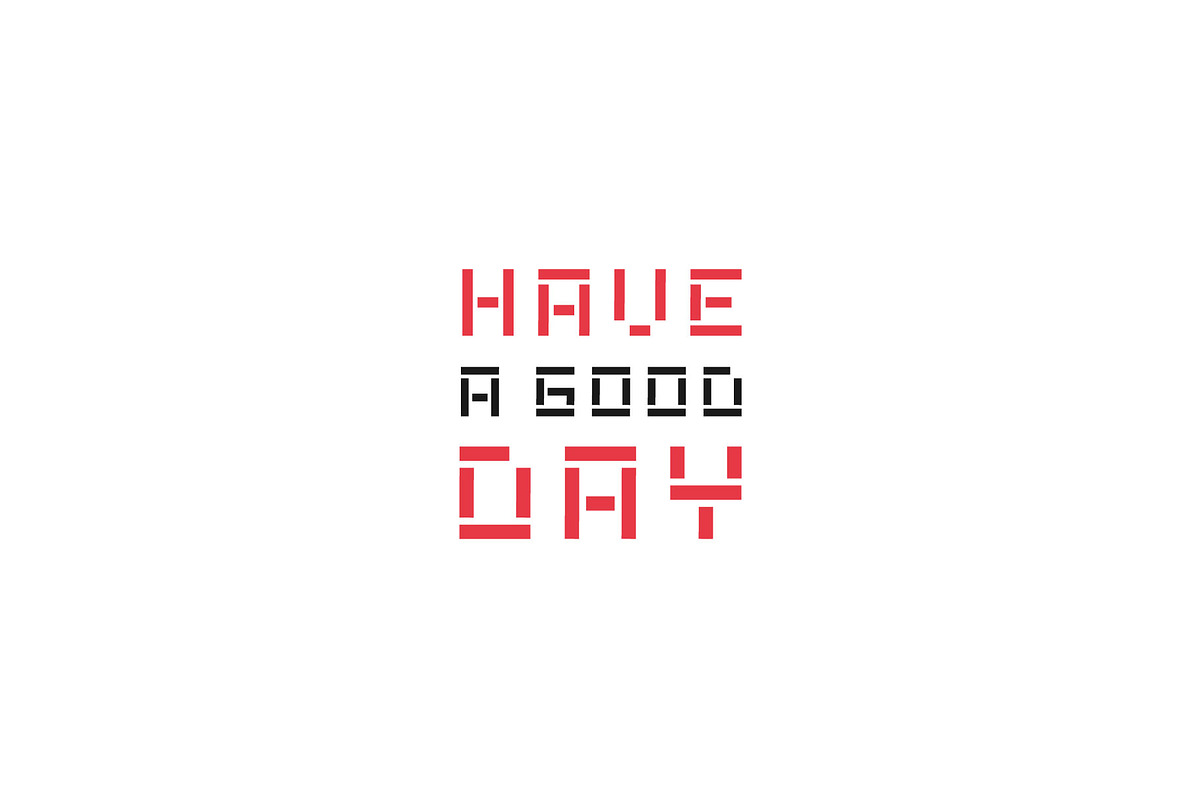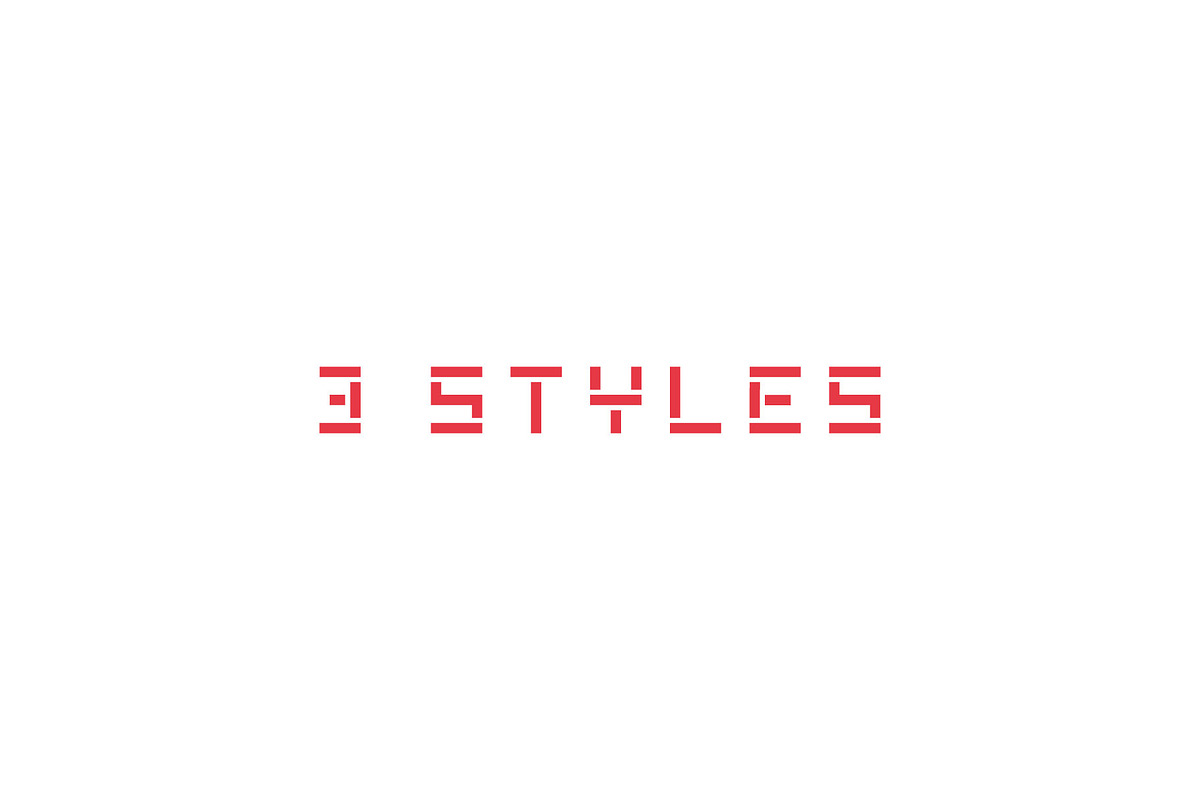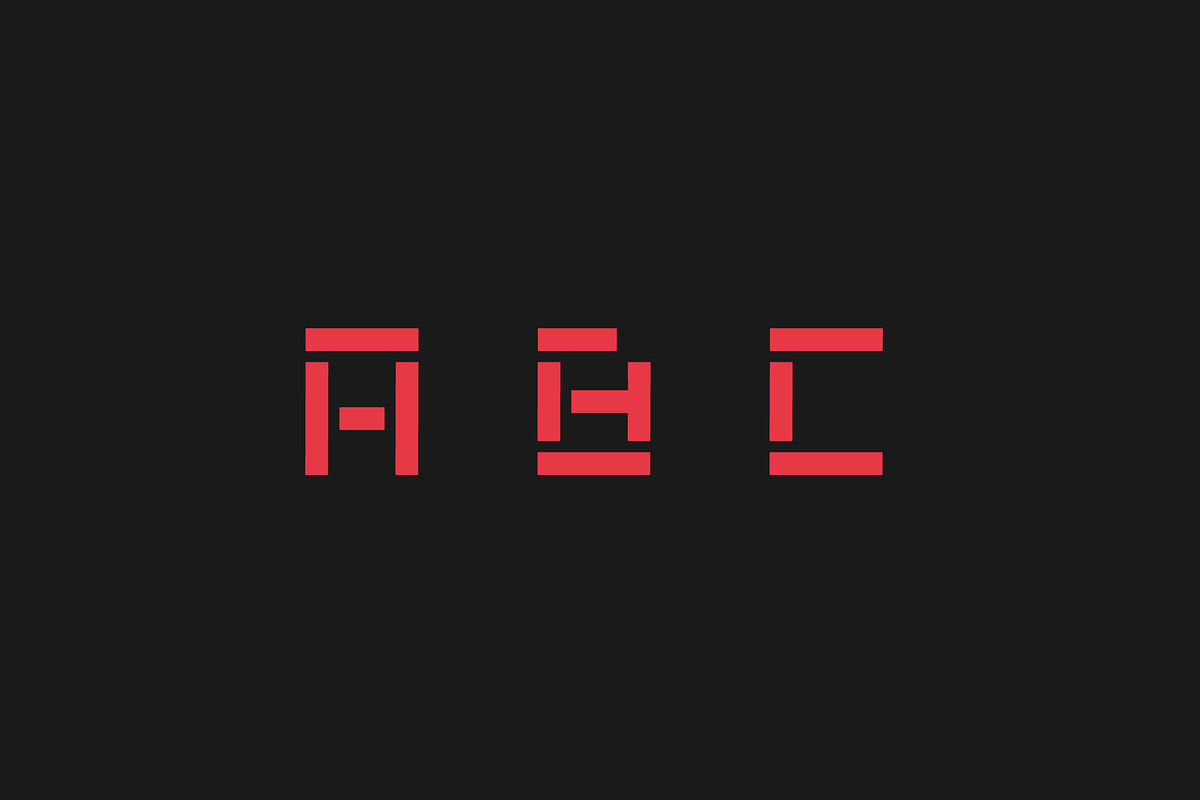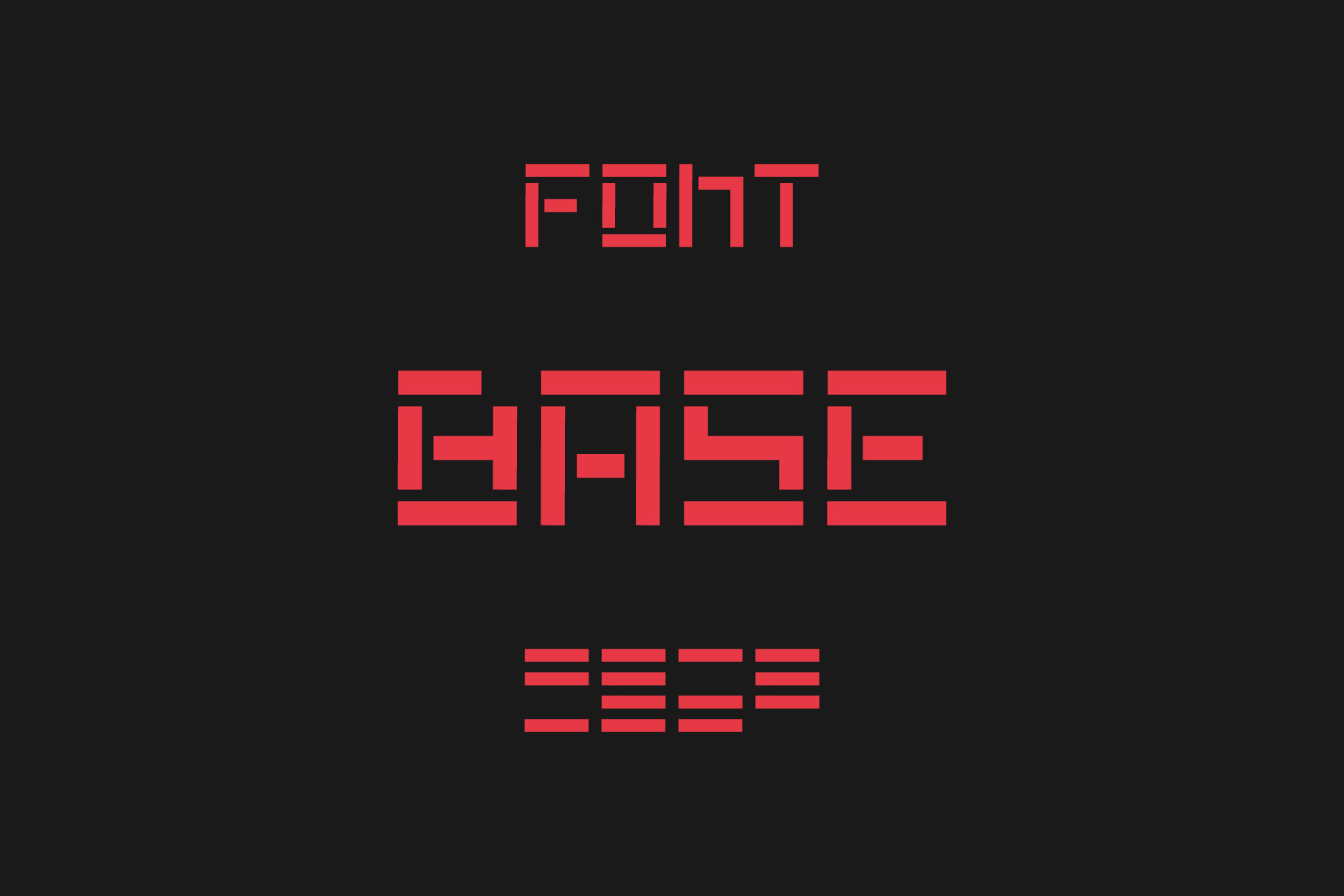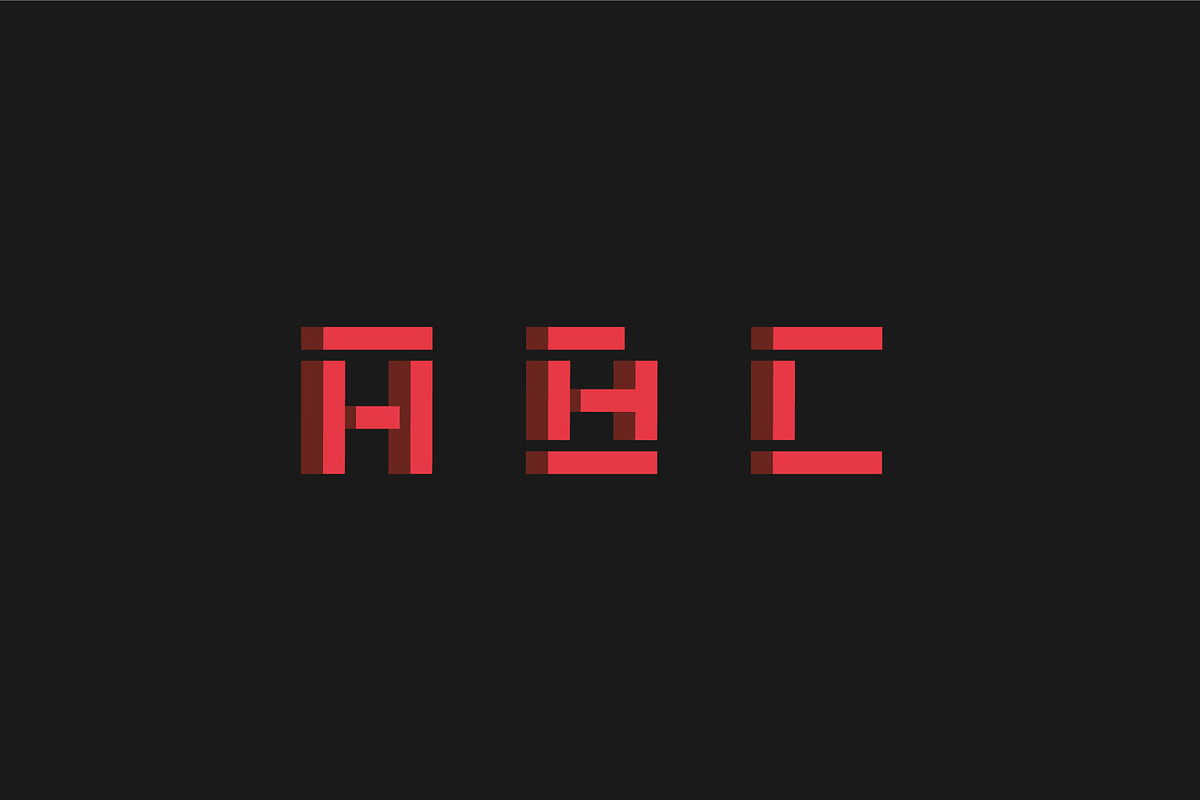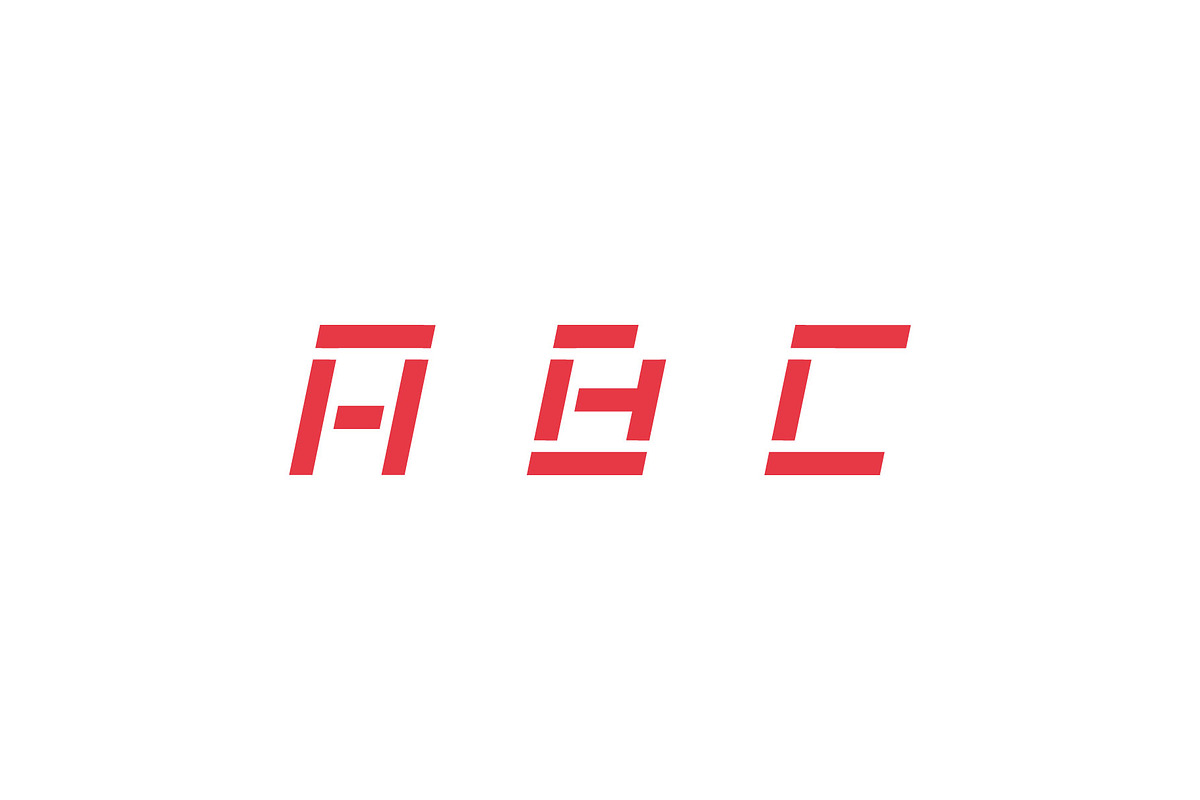
Vector Font. Base
Base – only vector stencil, strong and fundamental typeface.Powerful and strong font made of short straight and strong lines, like a brick, which is laid in the base of the house.
Base Font Variations
- Cursive
- Volume
- Uppercase Character
- Latin Letters